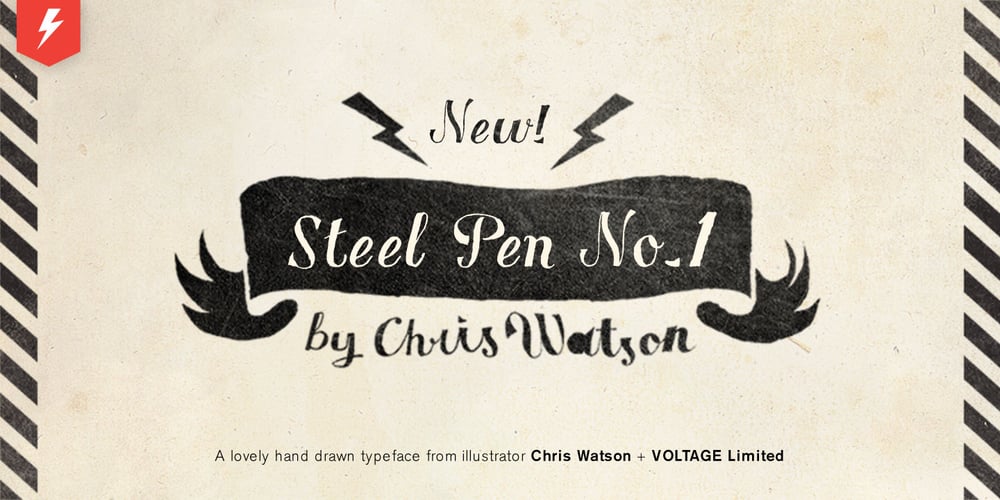
VTG Watson Steel Pen
VTG Watson Steel Pen font
VTG Watson Steel Pen Font Family was designed by Chris Watson and published by Voltage Ltd. VTG Watson Steel Pen contains 1 styles and family package options. If you’re regularly compelled to scrawl fiery French poetry, declare independence, or design indie folk albums, then Chris Watson’s romantic Steel Pen typeface is for you. With old-school edge and spirited opentype alternates, it’s as gallant as type gets.